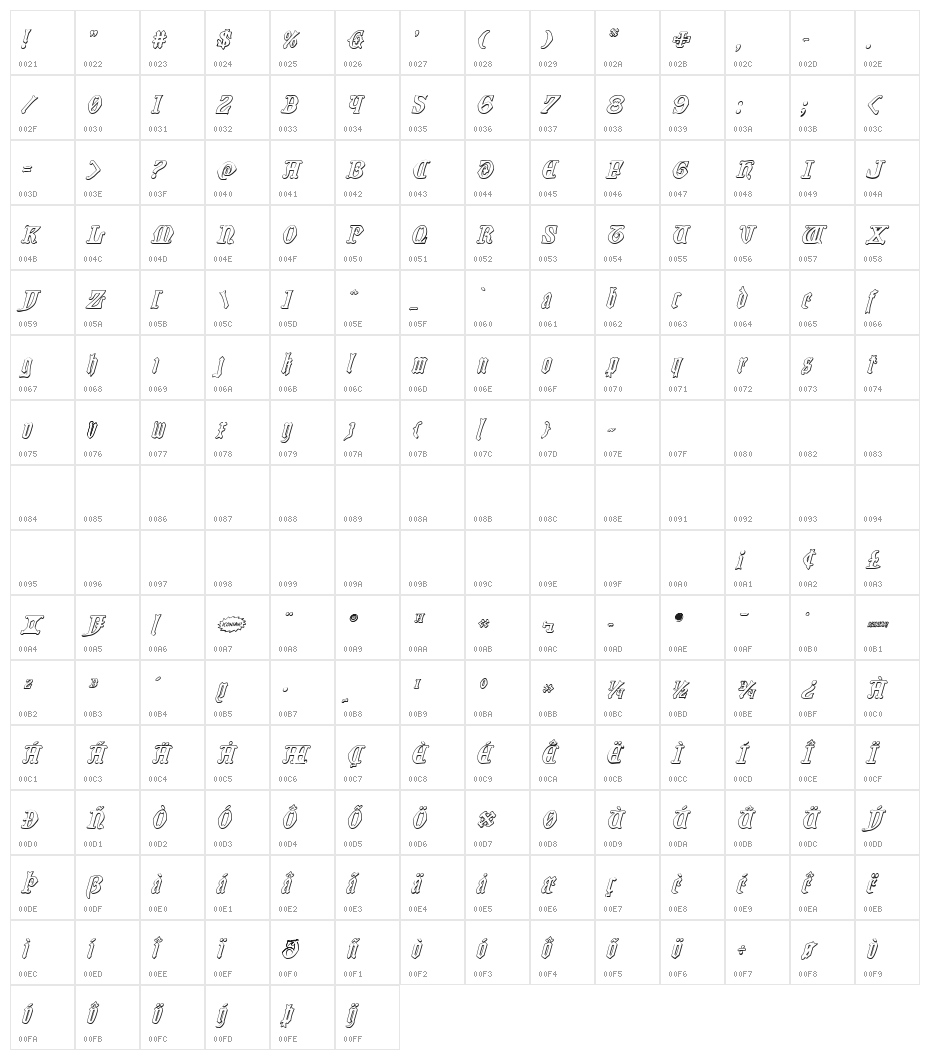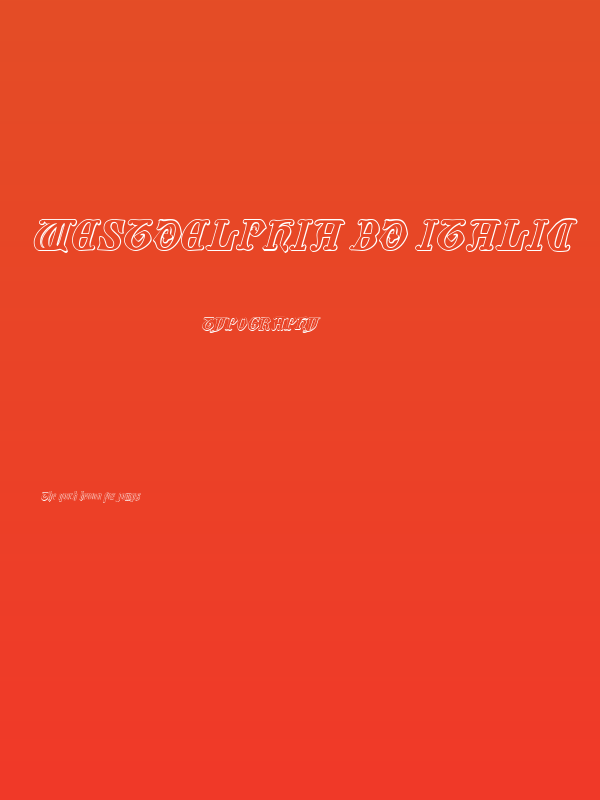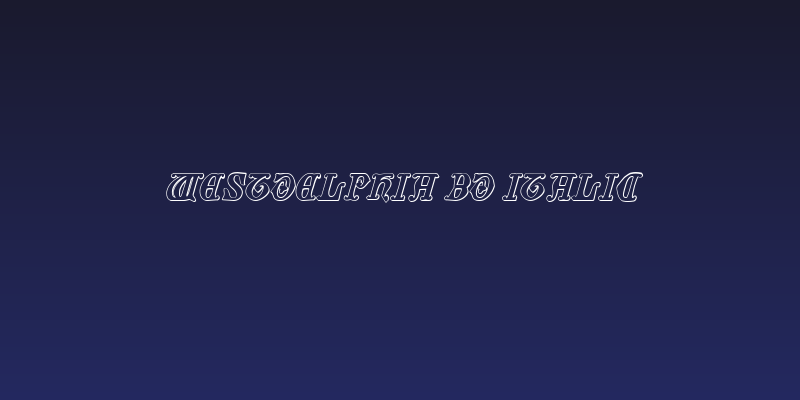
Westdelphia 3D Italic Font
Westdelphia 3D Italic Description
This font features a bold, three-dimensional design with a distinct italic slant, giving it a dynamic and eye-catching appearance. The characters are outlined, creating a shadow effect that enhances the 3D illusion. The uppercase letters are particularly striking, with sharp angles and a strong presence, while the lowercase letters maintain a consistent style that complements the overall aesthetic. The numerals and special characters are designed with the same attention to detail, ensuring a cohesive look across all elements. This font's unique style makes it ideal for projects that require a bold and impactful visual statement.